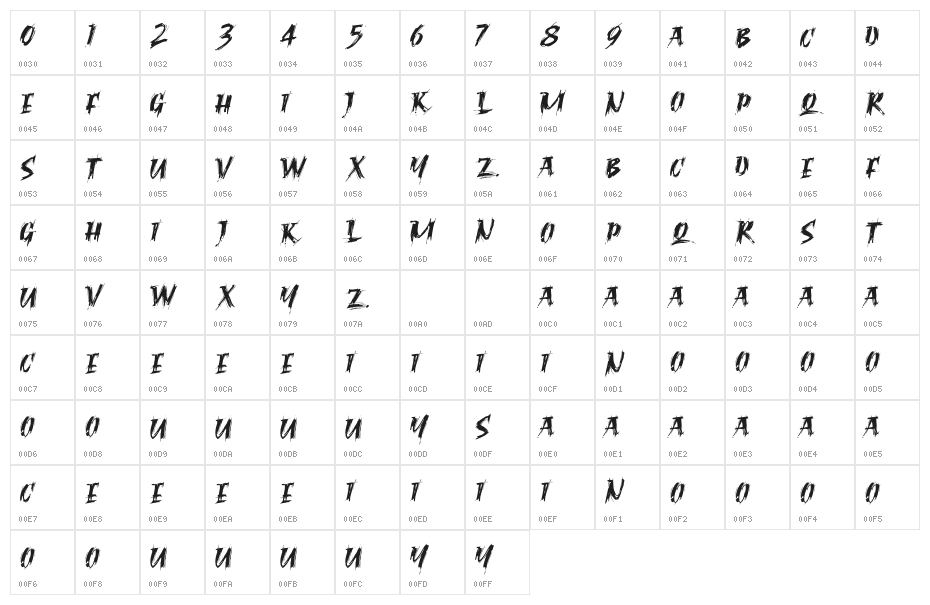
Ragnar Brush DEMO Font
Ragnar Brush DEMO Description
This font features a bold, dynamic brush style that exudes energy and movement. The strokes are irregular and jagged, giving it a raw, edgy appearance. Each character is uniquely crafted with varying thicknesses, creating a sense of spontaneity and artistic flair. The uppercase and lowercase letters maintain a consistent style, while the numerals and special characters complement the overall aesthetic. This font is perfect for projects that require a strong, impactful visual presence.
| Overall Style | Modern, Artistic |
| Proposed Projects | Ideal for posters, album covers, branding, and any design requiring a bold, artistic touch. |